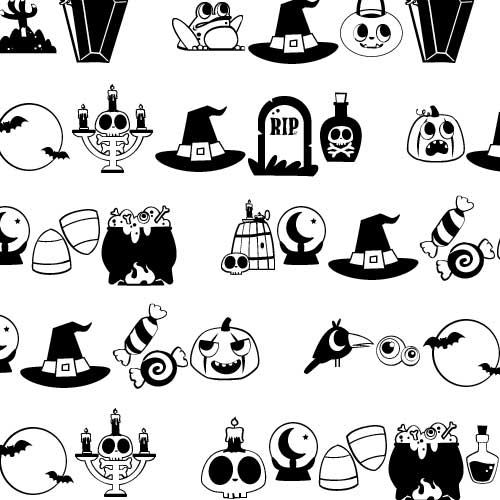
DB Lil' Monsters - Things - DB
This fun doodlebat font features 26 Halloween themed items perfect for cards, crafts, gifts, decor, planner stickers, scrap book pages and more!